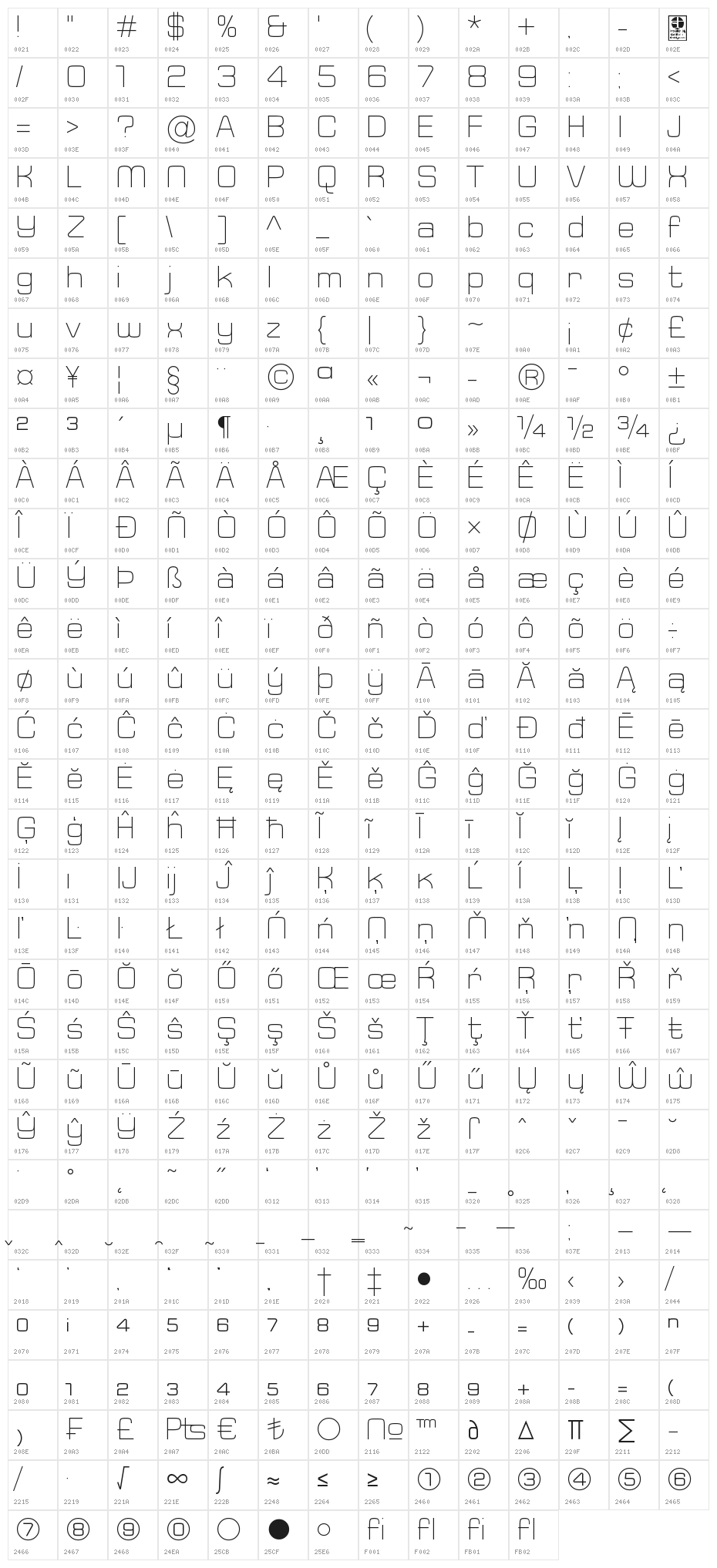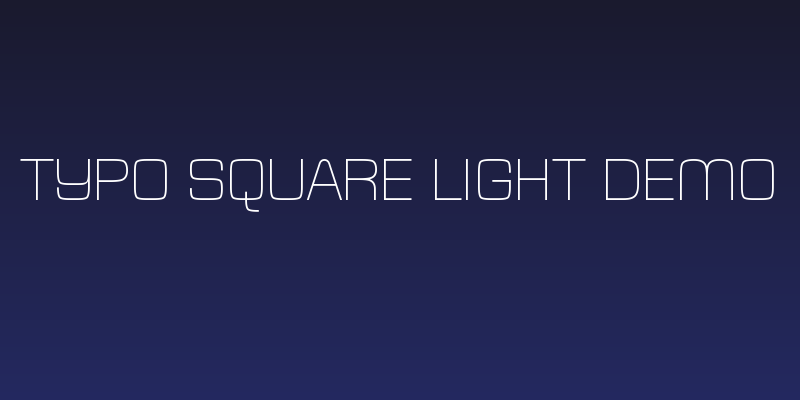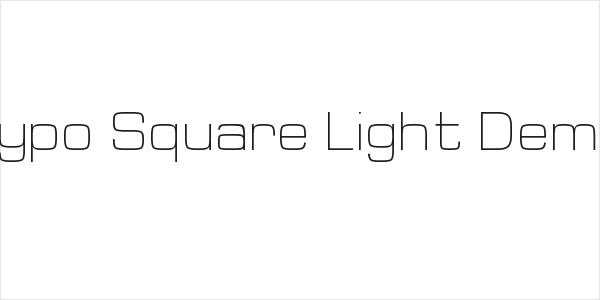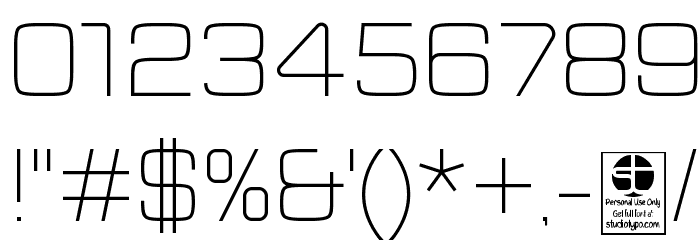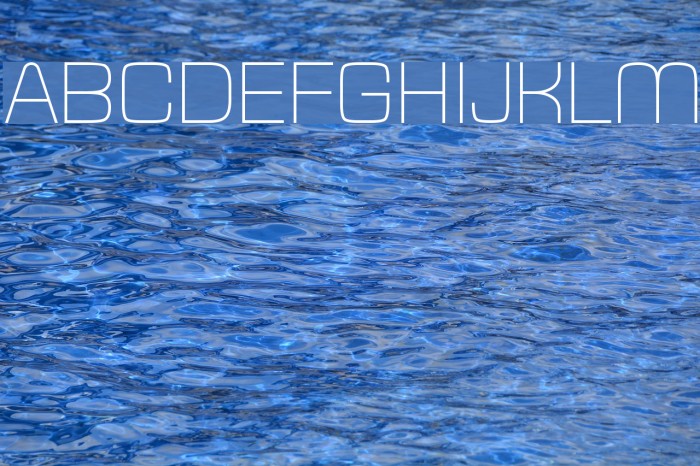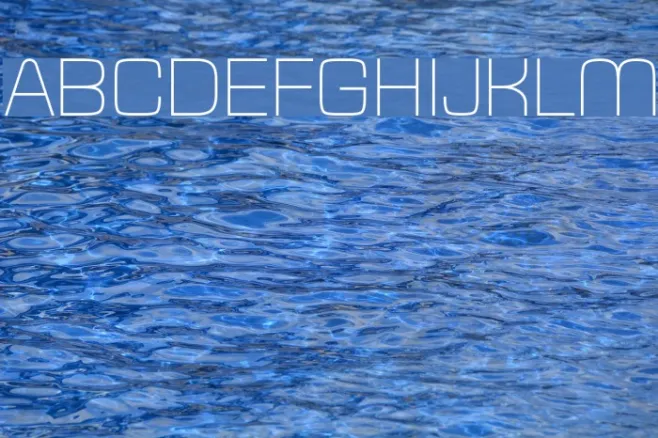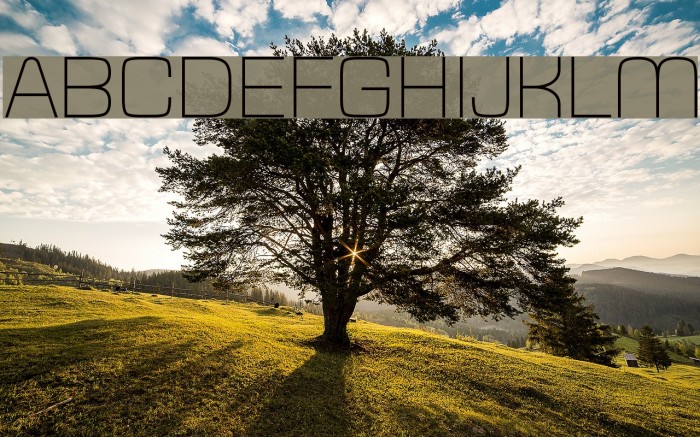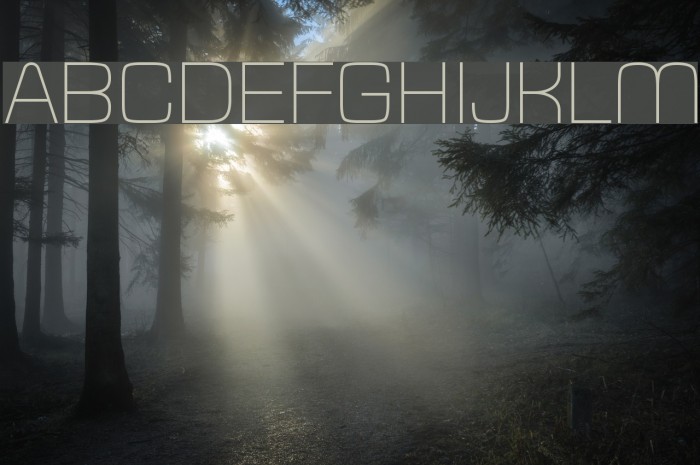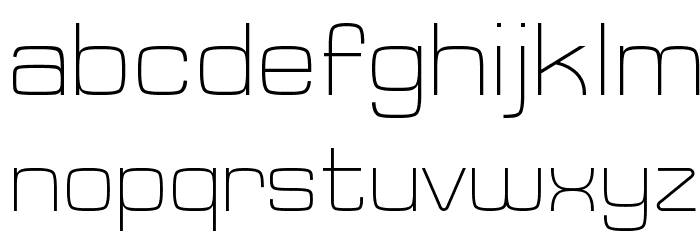
Typo Square Light Demo Font
Typo Square Light Demo Description
This font features a modern, geometric design with a clean and minimalist aesthetic. The characters are constructed with a consistent line weight, giving it a uniform appearance. The letterforms are slightly rounded, which softens the overall look while maintaining a structured feel. The spacing between characters is balanced, ensuring readability and a sleek presentation. Its simplicity and clarity make it suitable for a variety of design applications, from digital interfaces to print media.
| Proposed Projects | Ideal for tech branding, digital interfaces, modern print layouts, and minimalist design projects. |